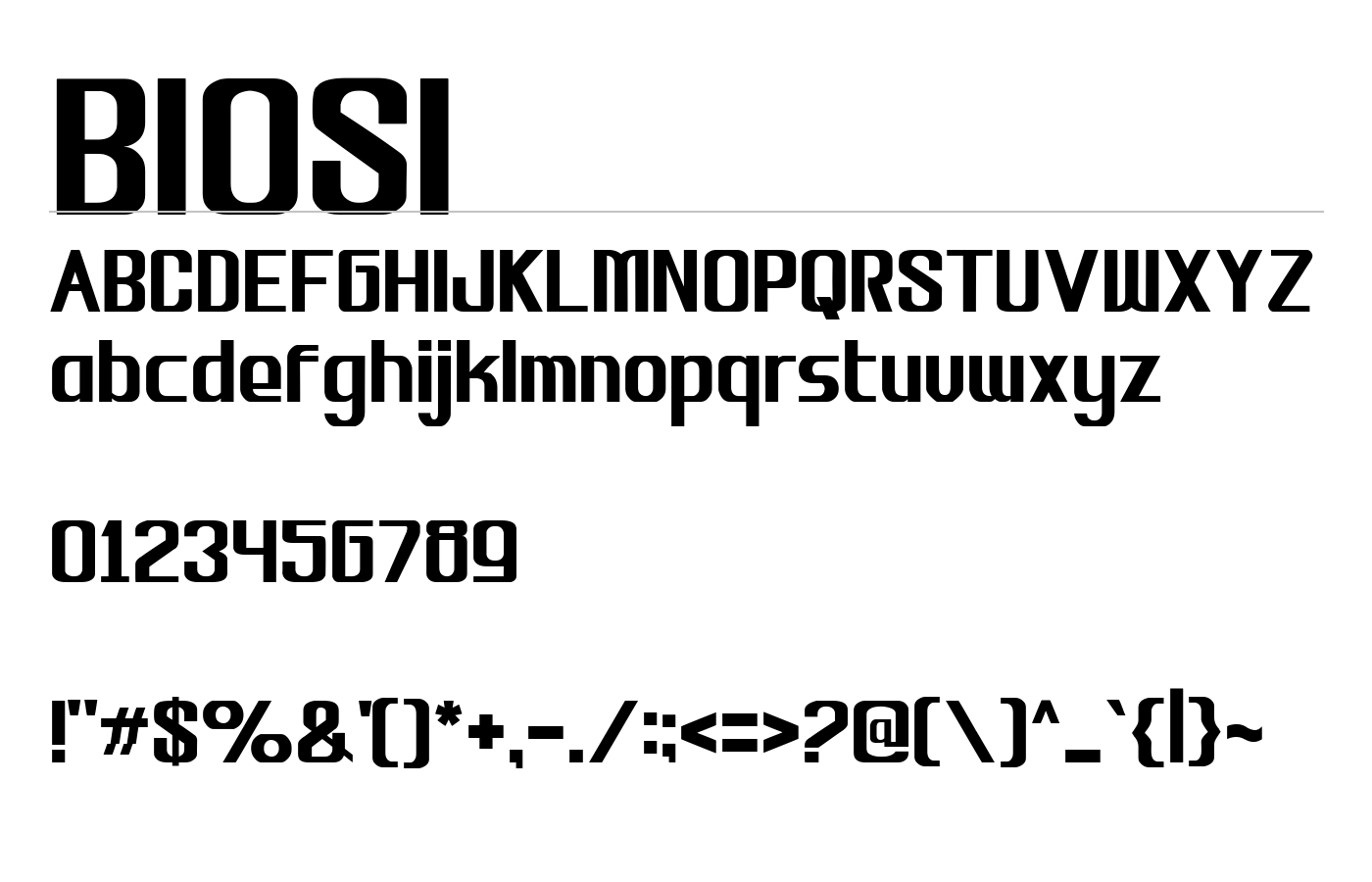
BIOSI is a bold, condensed sans serif font with a strong industrial and modern feel. Its clean, geometric forms and uniform stroke weight give it a sturdy presence ideal for impactful headlines, branding, and editorial use where clarity and a contemporary edge are needed. This font works well for projects seeking a confident, no-nonsense style with a technical yet approachable personality.
| Font family | BIOSI Font |
| Designer | herulogo-2019 |